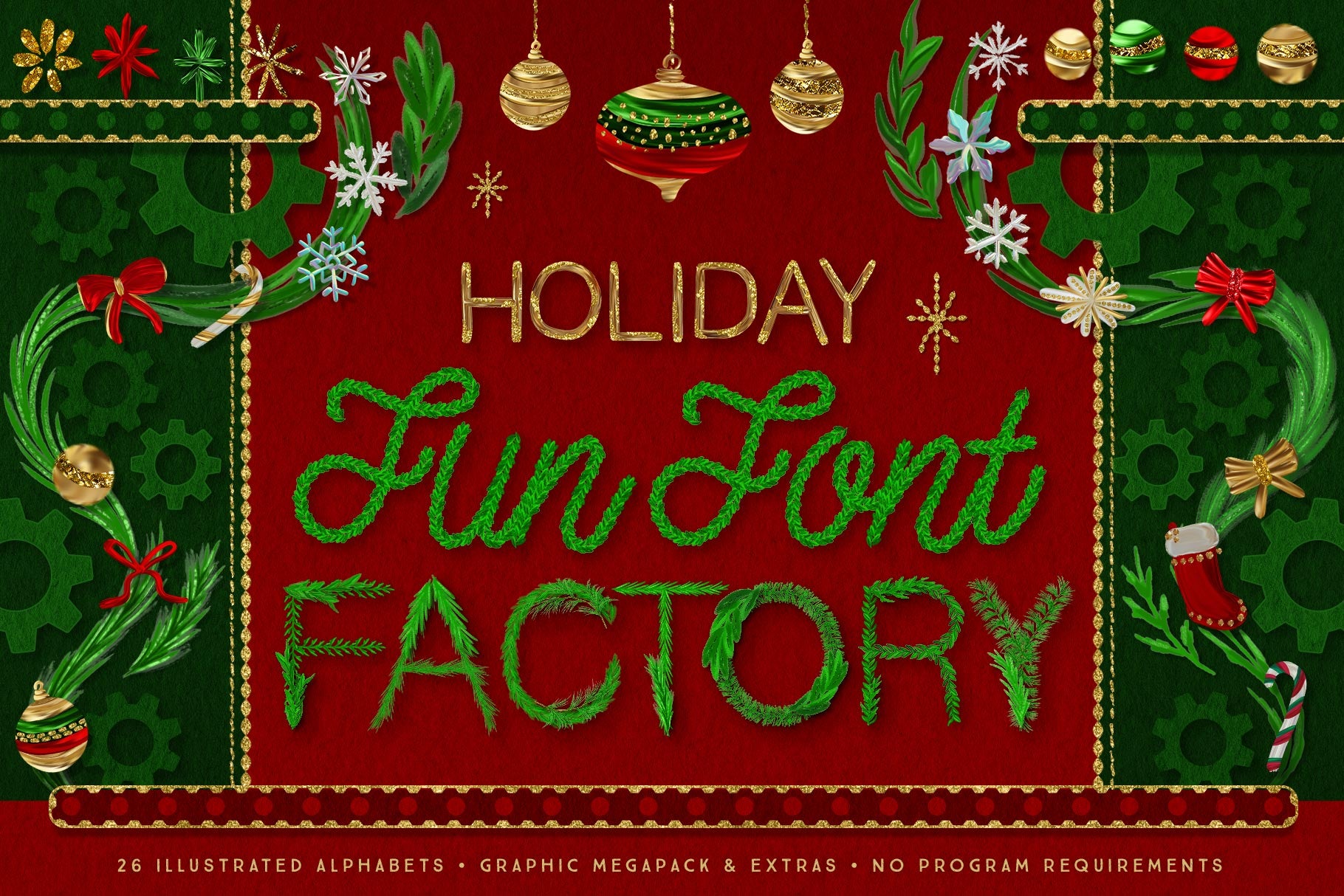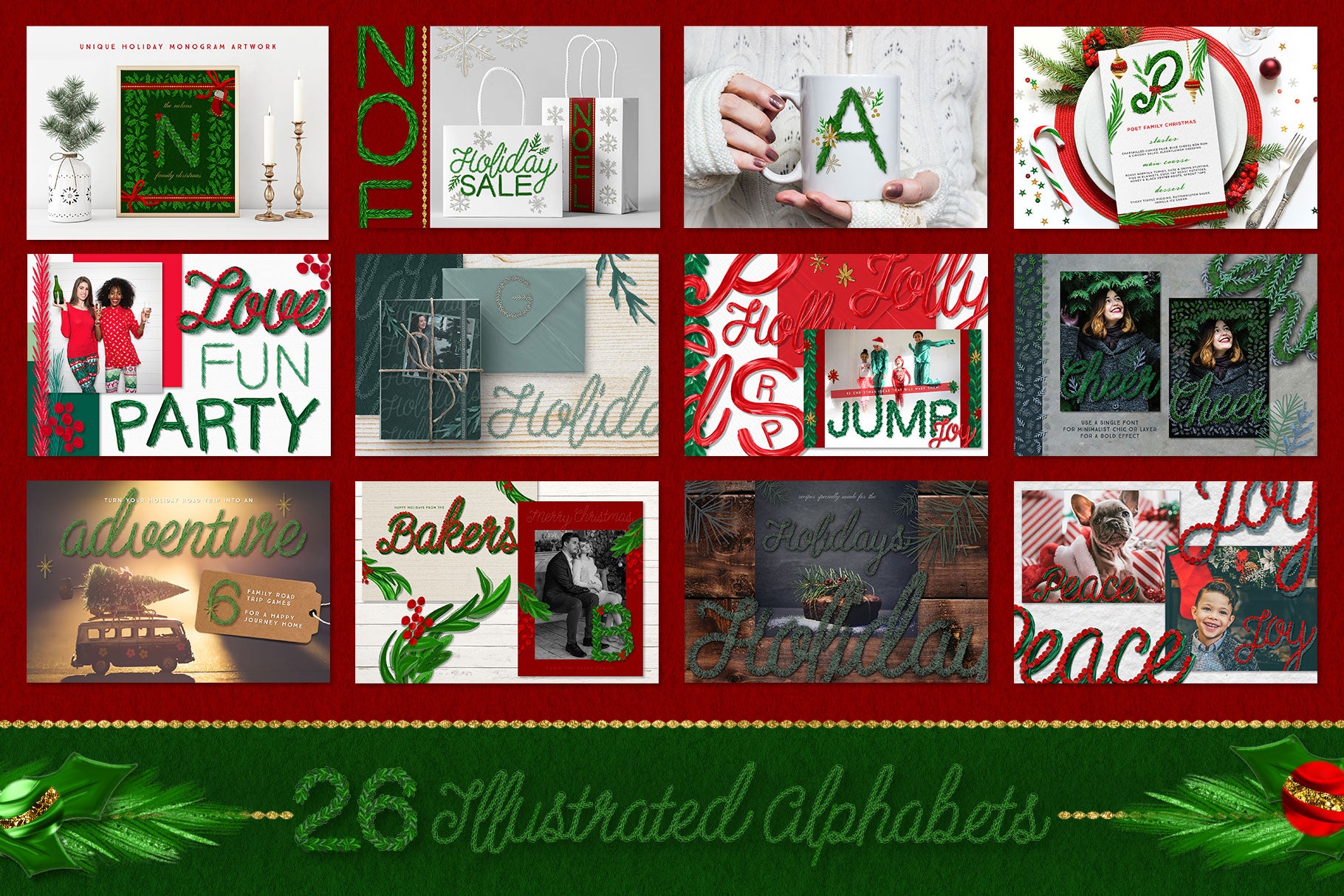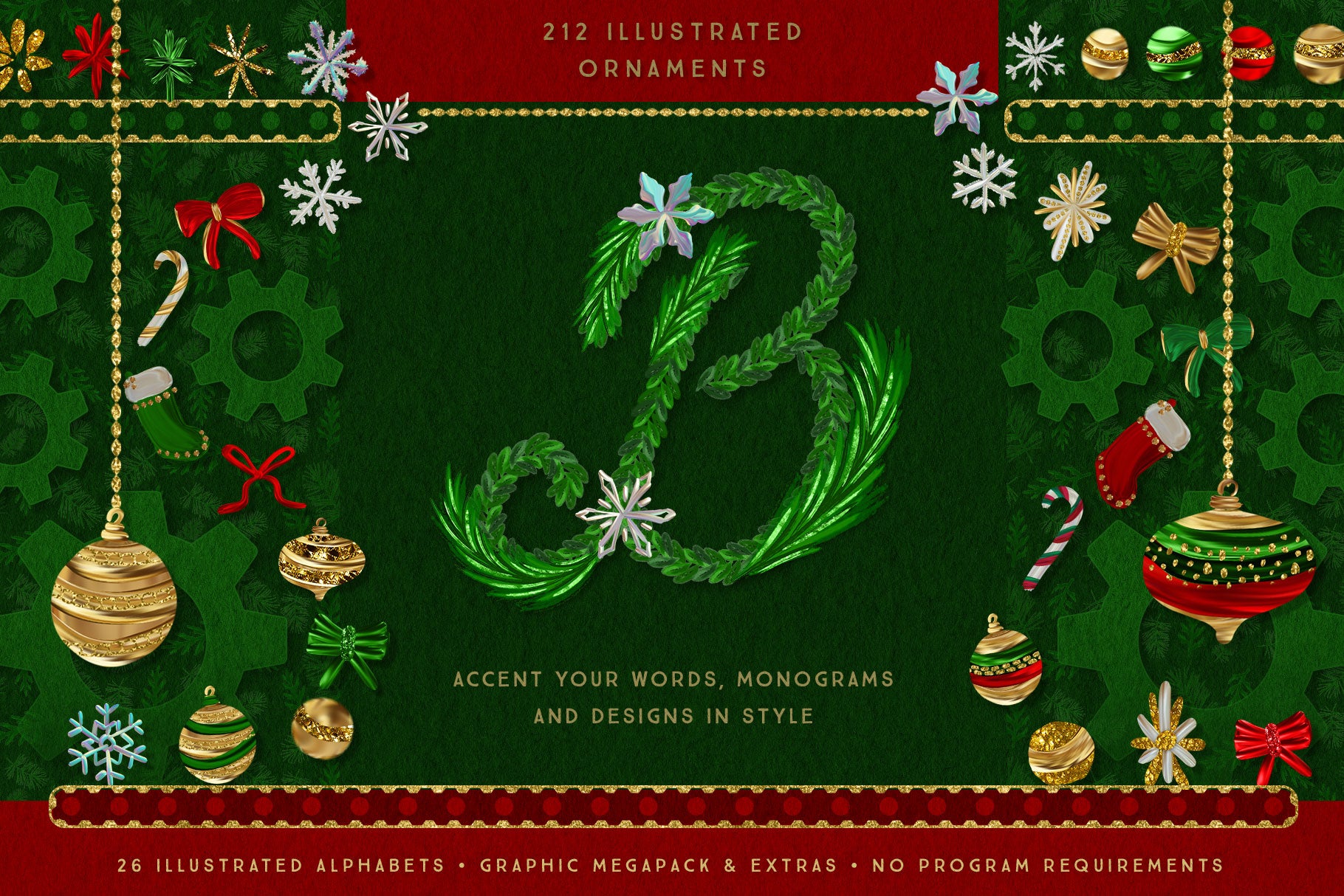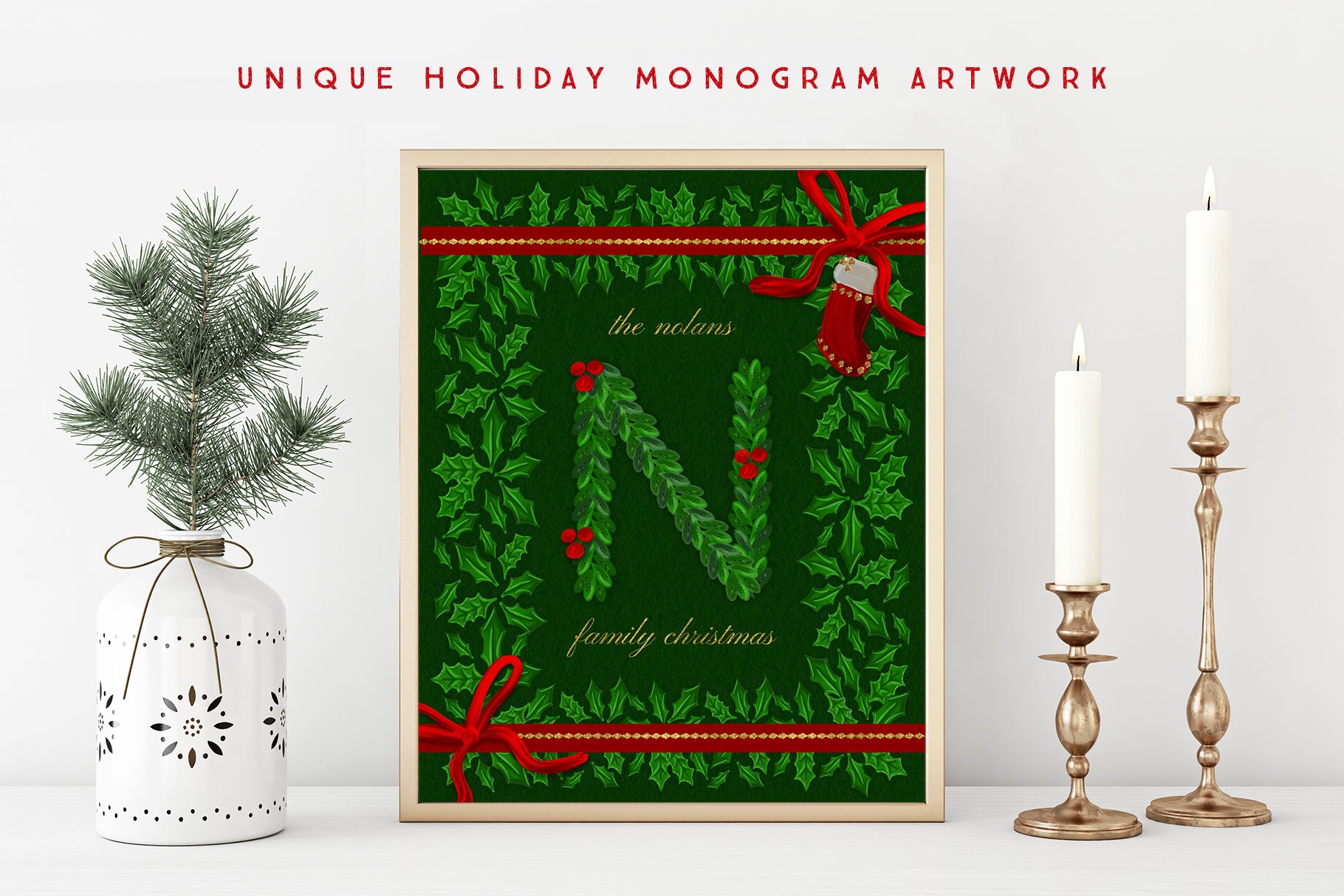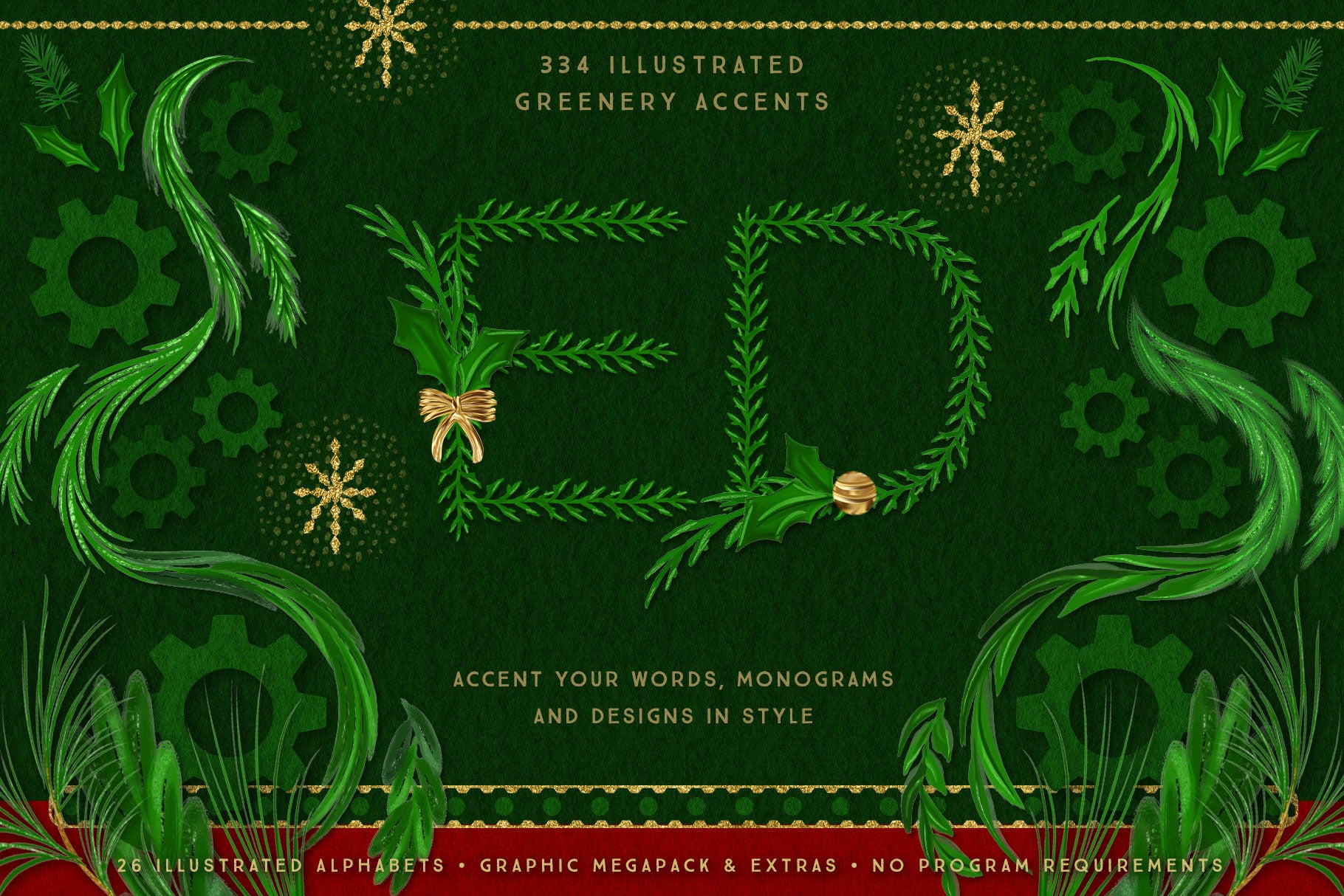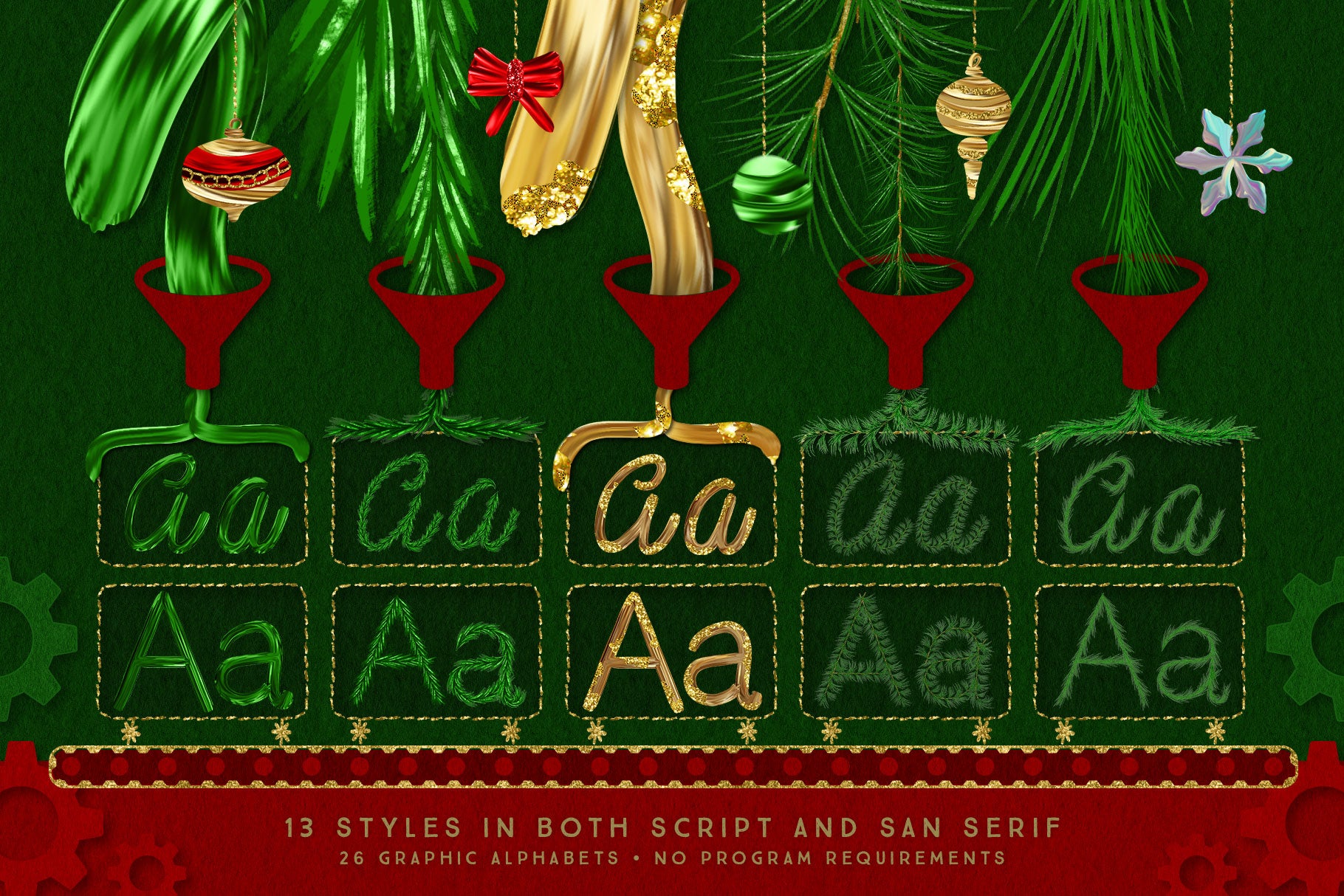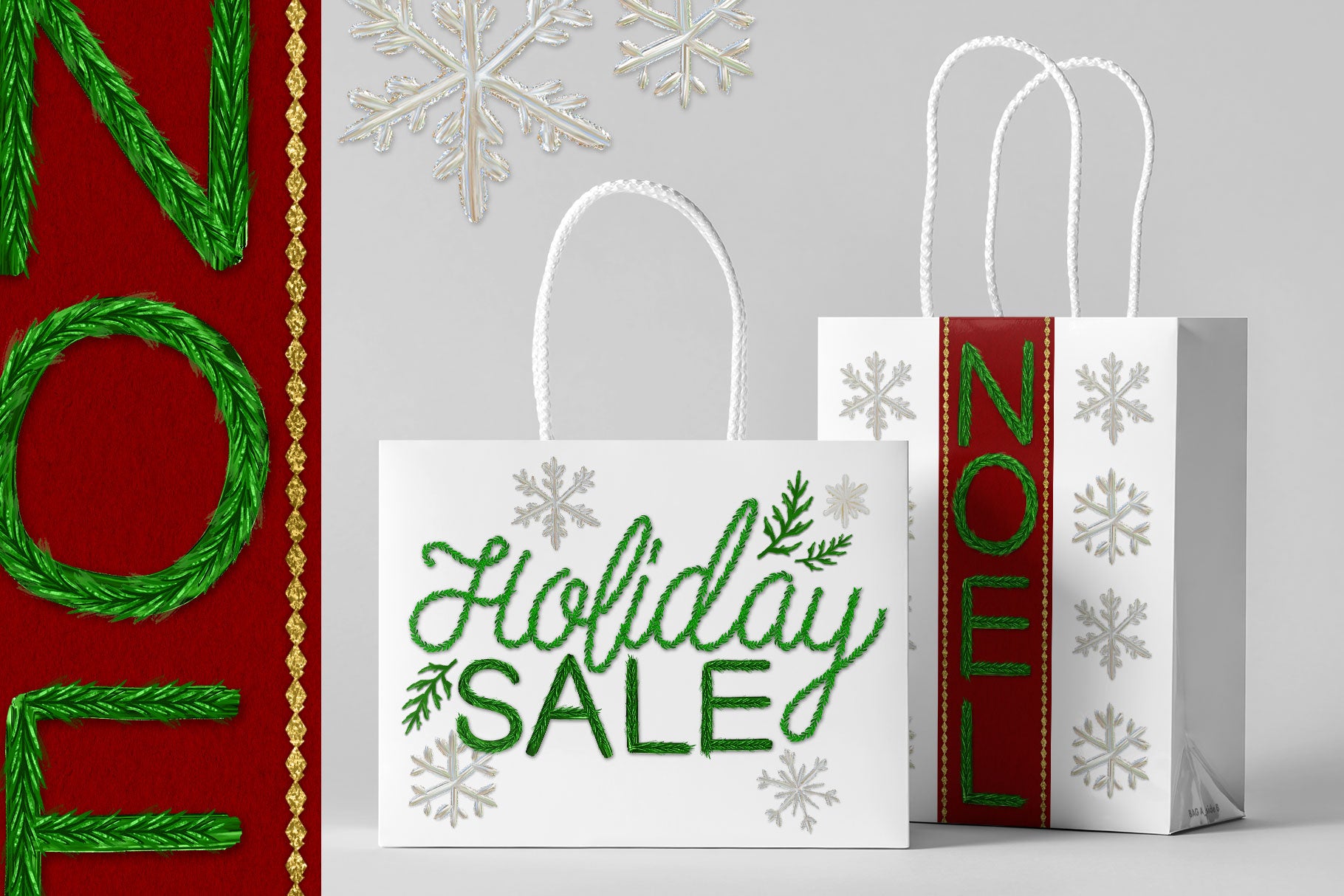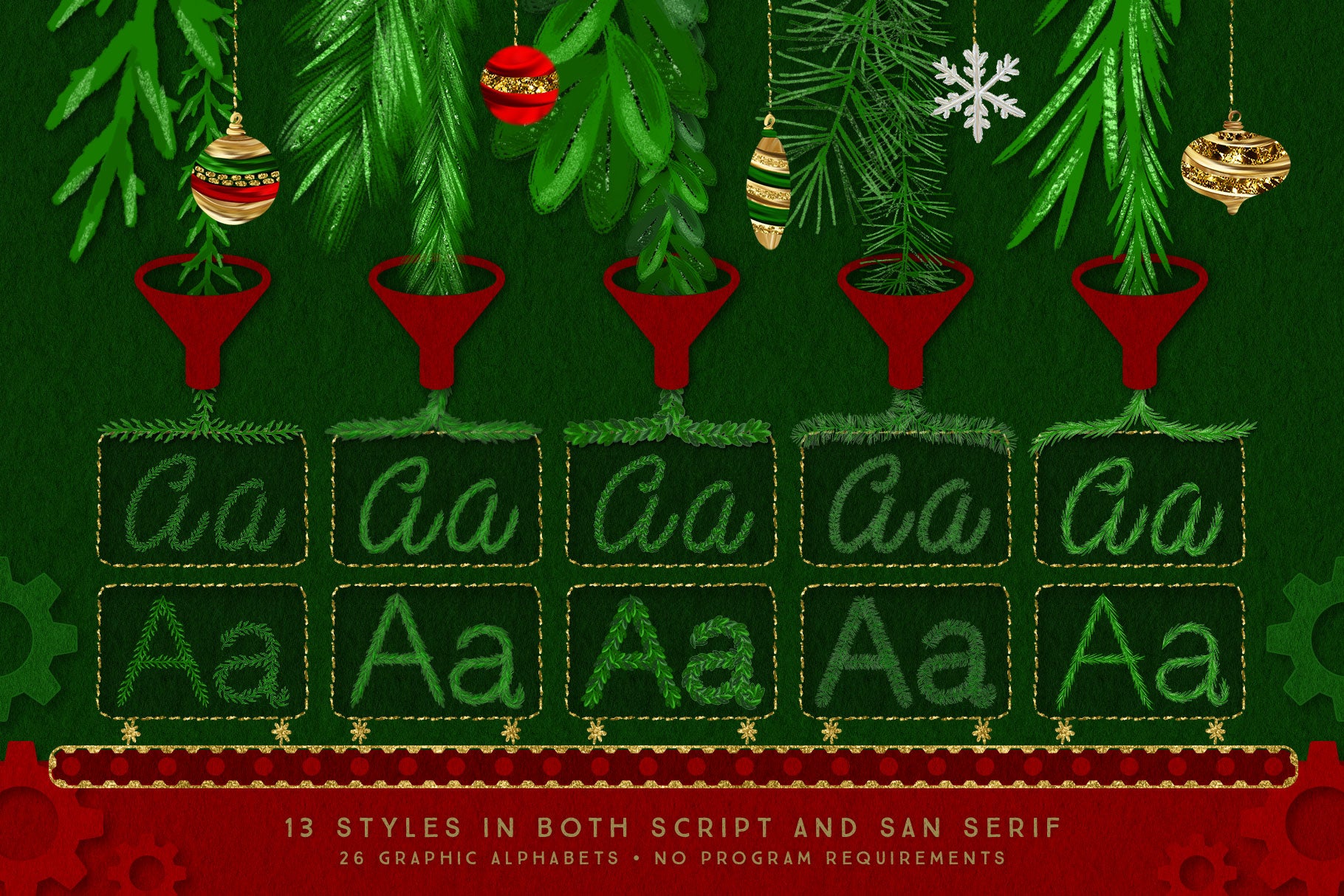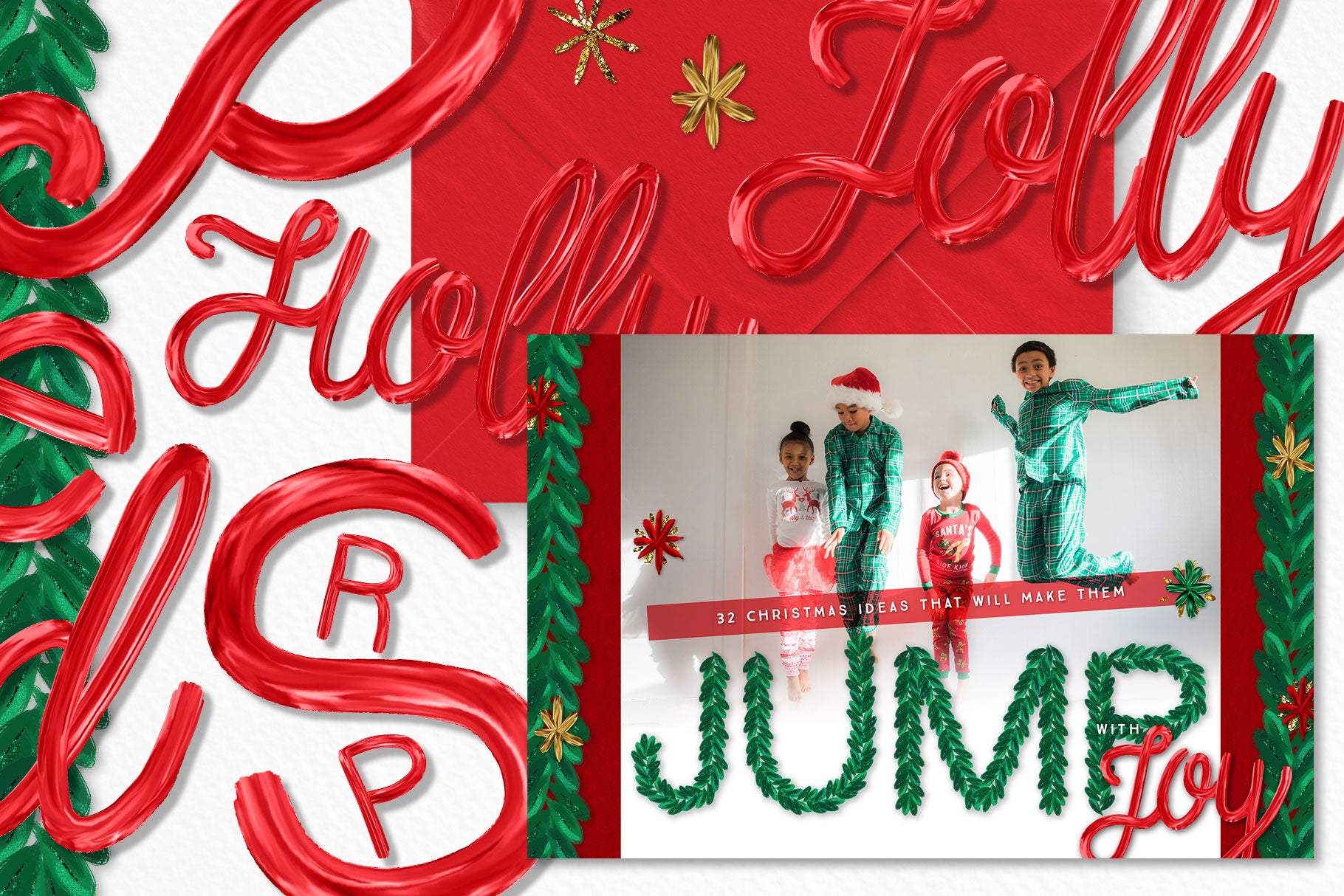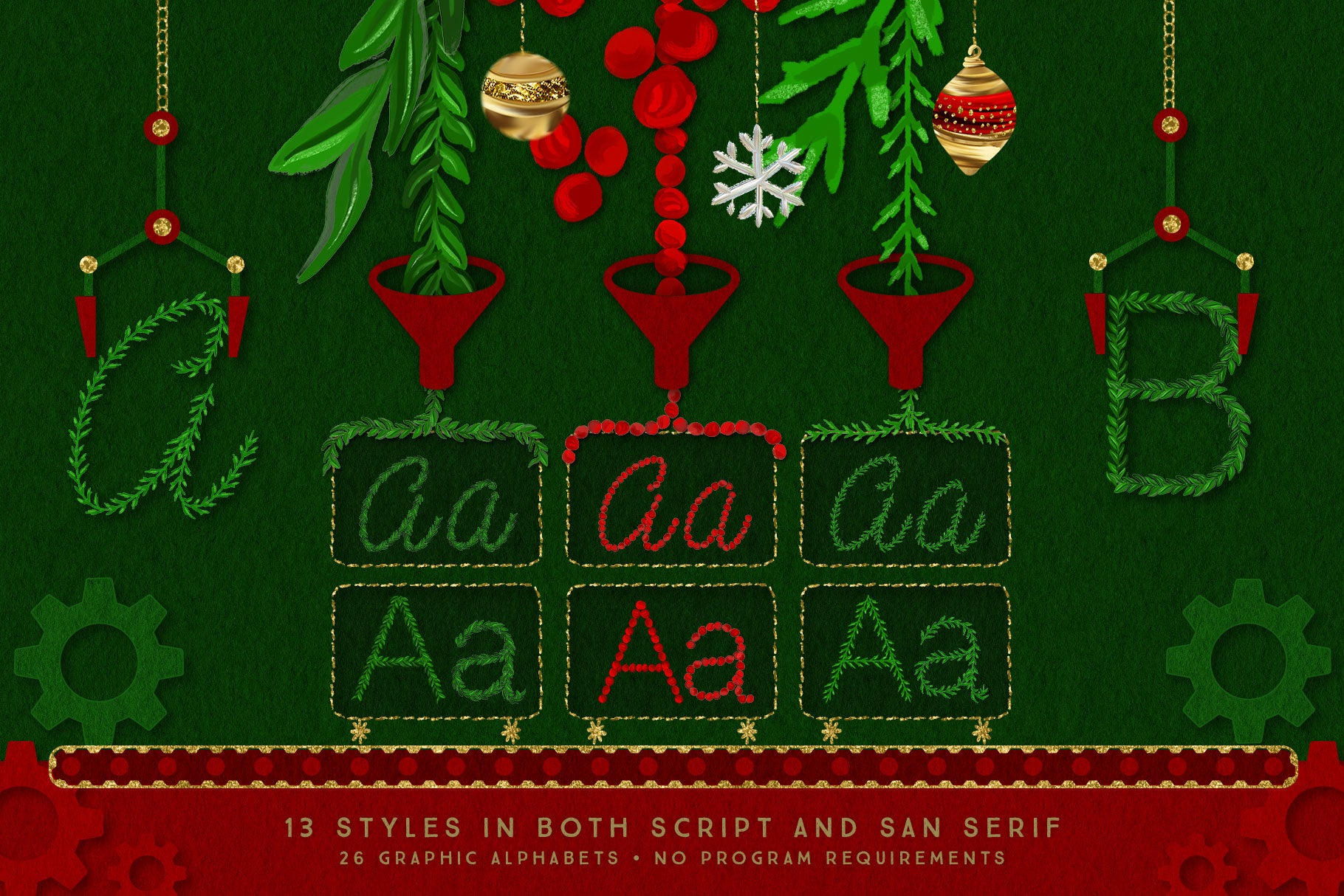
Luxe Holiday Greenery Alphabets: Christmas Lettering & Graphics Bundle
Easily create gorgeous, LUXE holiday and Christmas greenery lettering and monogram designs with this pre-made holiday graphics bundle. Perfect for all of your Christmas card designs, holiday invitations, Christmas home decor artwork and more! Compatible with any program!
Welcome to the most versatile and luxe holiday lettering bundle of the season! Create unique and amazing holiday lettering designs and monograms with these gorgeous 26 illustrated holiday greenery alphabets. The versatile graphic bundle is expertly organized to allow you maximum fun and minimal effort when you are creating your most dazzling designs of the season. Use these resources AGAIN AND AGAIN, all season long... for all your holiday projects. I've taken care of all the tedious details, so you can just have FUN and CREATE!
Perfect for all your holiday card designs, items for sale, holiday signage and promotions, blog graphic headlines, monogram designs and personalization, unique holiday artwork, packaging and so much more!
26 Illustrated Holiday Greenery Alphabets: 13 Styles in both Script and San Serif Style
• Includes capital, lowercase letters, numbers and comprehensive punctuation
Ready-Made Holiday Greenery: Words, Phrases, & Christmas Lettering
• 17 Ready-Made Holiday Words in each of the 13 Script Styles
Ideas for Use:
• Luxe Christmas Monograms
• Holiday Artwork
• Holiday Monogram mugs for sale
• Christmas packaging designs
• Holiday blog graphics
• Luxe holiday card designs
• Christmas printables for sale
• Christmas wrapping paper design
• Make holiday T-shirt designs
• Christmas menu designs